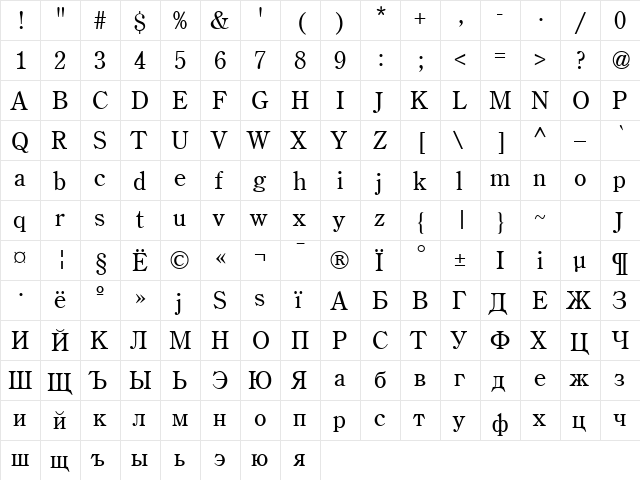
Century Normal Font Preview
Century Normal
Design Context for Century Typeface
Century offers clean, dependable letterforms without strong stylistic allegiance, making it a practical choice for designers who need flexibility.
Pro Tip: Pair Century with a font of contrasting weight or personality to build a more expressive typographic hierarchy.